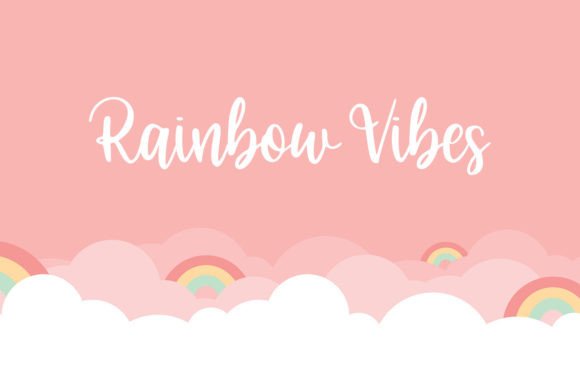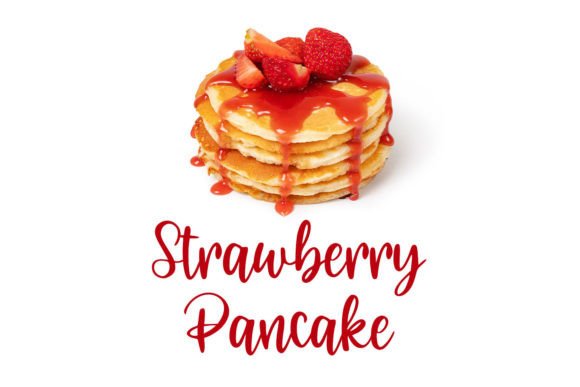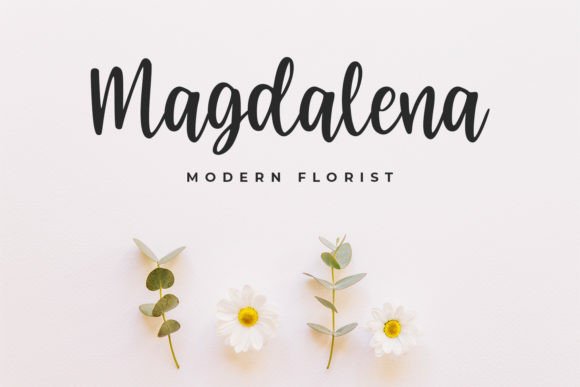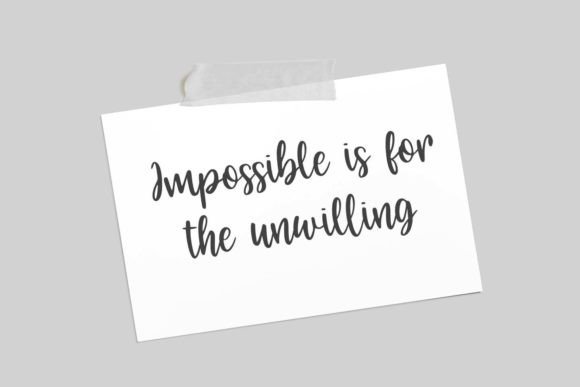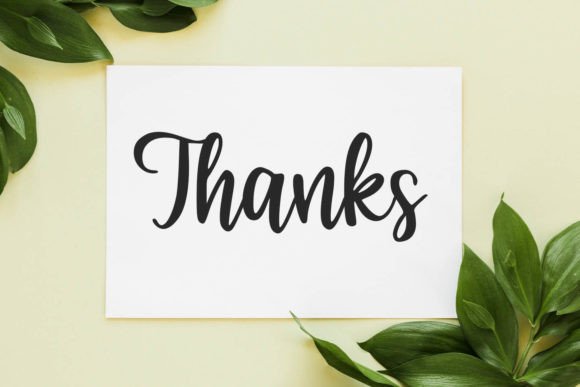
The Magic of Cinnamons Font: Elevate Your Designs with this Beautiful Script
I’ll never forget the time I was working on a branding project for a small bakery, and I was struggling to find the perfect font to capture their warm and cozy vibe. That’s when I stumbled upon Cinnamons Font, a beautiful script that instantly transported me to a world of handwritten loveliness. In this article, I’ll share my experience with Cinnamons, its features, and how to make the most of it in your designs.
An Honest Review of Cinnamons Font
Cinnamons Font is a natural handwritten script that’s perfect for adding a personal touch to your designs. Here’s what I love about it:
- ✨ Beautifully crafted letters with a warm, friendly feel
- ✅ Highly versatile and suitable for various design projects, from logotypes to social media graphics
- ✅ Easy to read and understand, even at smaller font sizes
- ✅ Supports OpenType features, glyphs, and stylistic alternates for added creativity
While Cinnamons Font is amazing, it’s not perfect. Here are some minor quirks to keep in mind:
- ⚠️ Some letters may require manual kerning for optimal spacing
- 🤔 Limited availability of certain special characters
The Backstory of Cinnamons Font
Cinnamons Font was designed with the intention of creating a beautiful, natural handwritten script that captures the warmth and elegance of handwritten letters. The designer aimed to create a font that’s highly versatile, easy to read, and perfect for a wide range of design projects.
| Font Name | Cinnamons Font |
| Author | Abodaniel |
| What is Cinnamons Font best suited for? | Cinnamons Font is perfect for logotypes, branding, packaging, t-shirt designs, tote bag designs, cards, banners, social media graphics, and more. |
| Is Cinnamons Font easy to read? | Yes, Cinnamons Font is designed to be easy to read, even at smaller font sizes. |
| Does Cinnamons Font support OpenType features? | Yes, Cinnamons Font supports OpenType features, glyphs, and stylistic alternates, giving you added creative flexibility. |